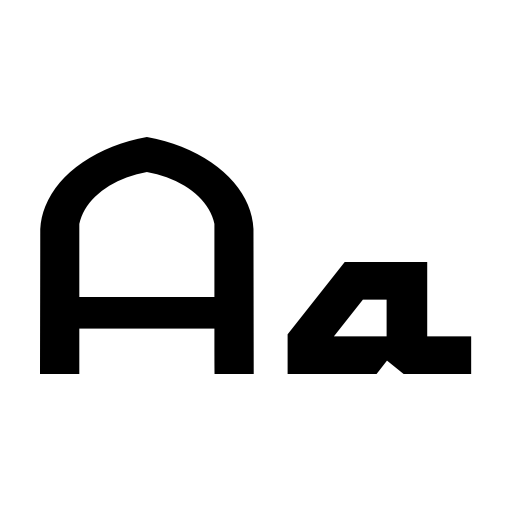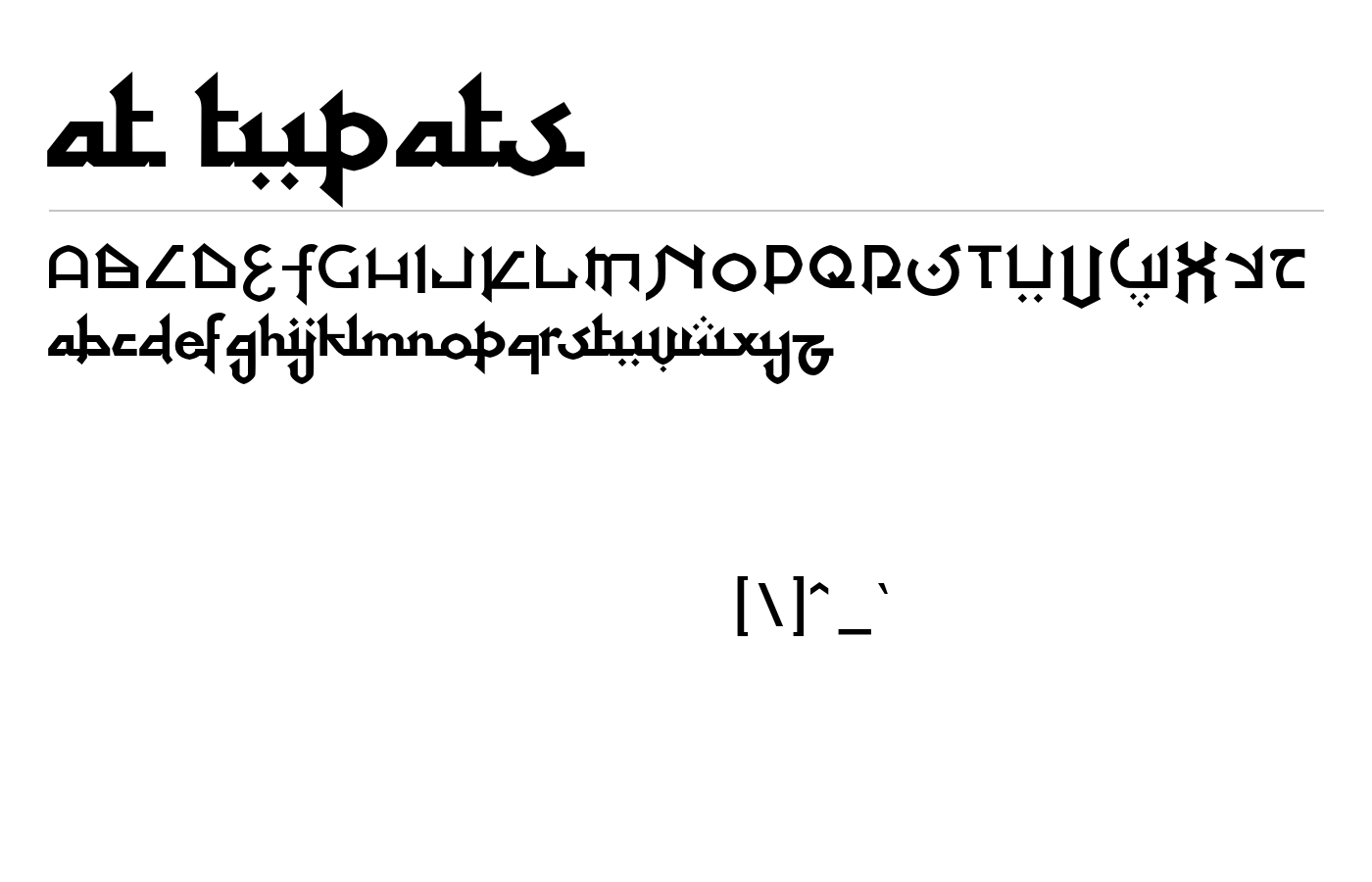
At Tupats is a bold, geometric serif font with a distinctive, futuristic feel. Its sharp lines and angular serifs create a strong, almost architectural look, while the unusual letterforms give it a unique and modern personality, making it ideal for logo design, headlines, or branding that aims to stand out with a cutting-edge edge. This font works especially well where a dramatic, innovative impression is desired.
at tupats Font
About at tupats Font
| Font family | at tupats Font |
| Designer | joko setiono |
| Trademark | js studio |